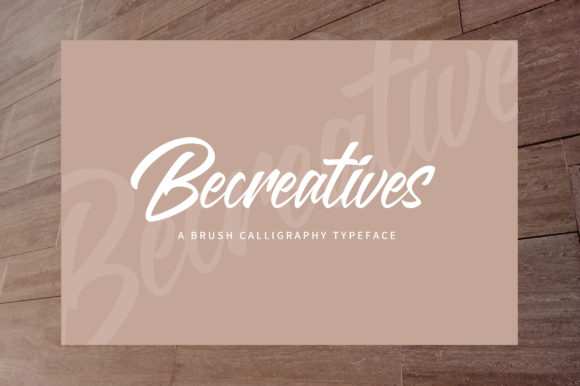
Becreatives Font
Embark on a typographic odyssey with Becreatives, the enchanting script that will ignite your creative flame! Immerse yourself in the allure of its modern curves and graceful swashes, meticulously crafted by the acclaimed Libscript. This captivating font family beckons you to express your individuality with flair and finesse.
Unleash the power of Becreatives to transform ordinary words into captivating stories. Its alluring script adds a touch of whimsy and sophistication to any design, effortlessly enhancing its visual appeal. Whether you're a budding designer or a seasoned typography enthusiast, Becreatives is the perfect muse to inspire your imagination and elevate your creations.
Indulge in the boundless possibilities that Becreatives offers. Its versatility knows no bounds, seamlessly adapting to a symphony of design styles. From elegant wedding invitations to eye-catching social media graphics, Becreatives effortlessly elevates your message with a touch of timeless beauty. Dive into the depths of this magnificent script and discover the transformative power it holds.
Join the creative revolution and make Becreatives your go-to font for every occasion. Let its alluring curves dance across your screen, captivating your audience with its undeniable charm. Embrace the endless possibilities that await you with Becreatives, the script that will ignite your passion for typography and leave an indelible mark on your designs.